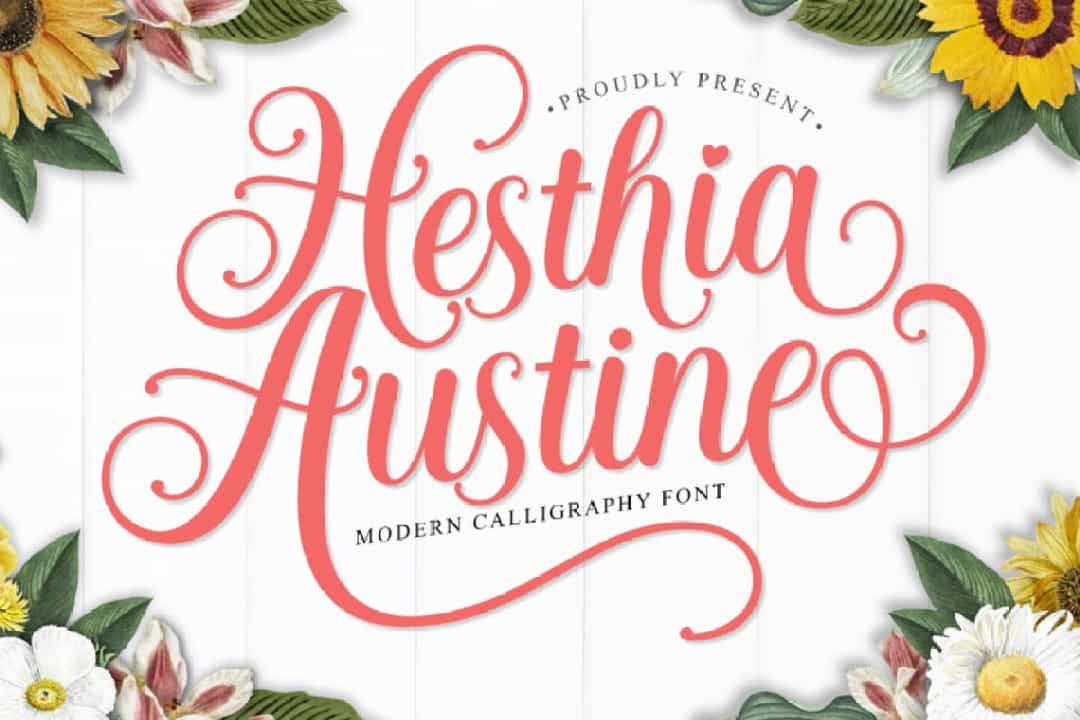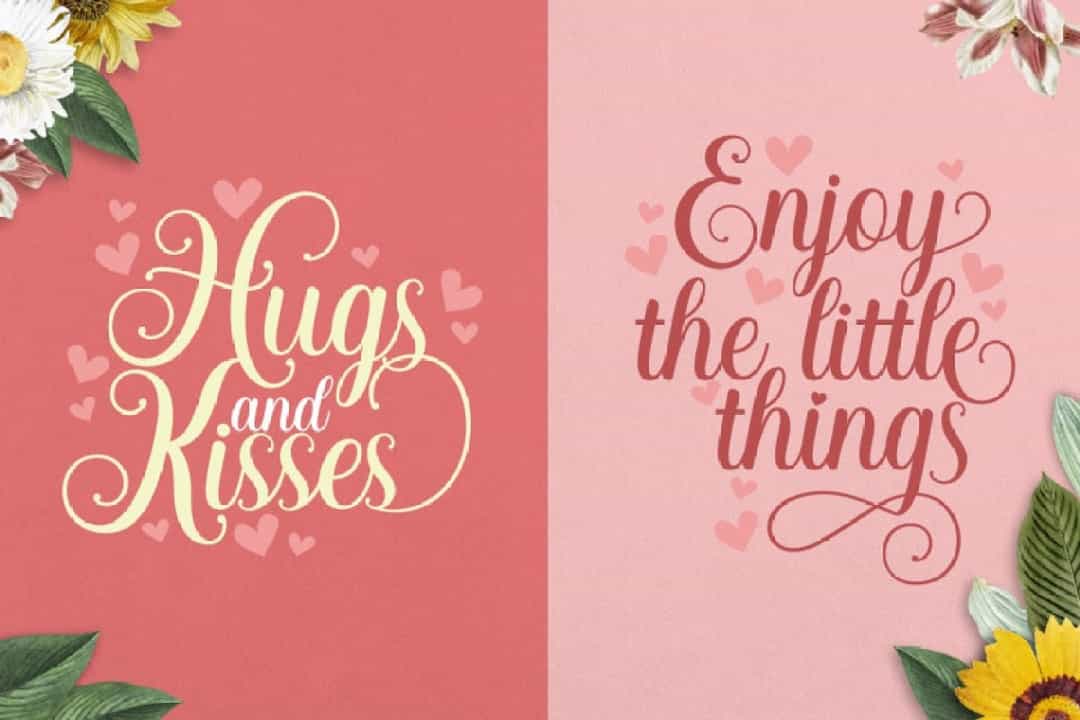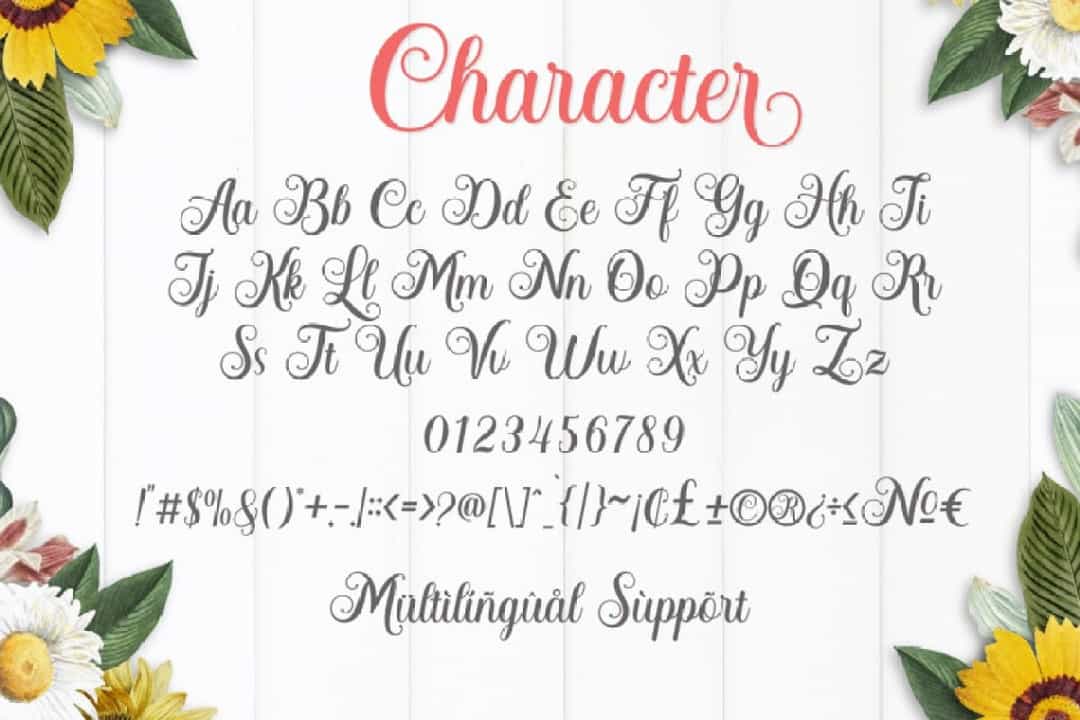
Hesthia Austine is a classic modern font style of calligraphy. This soft font is elegant and lovely and will fit for any kind of designs and gives a fairy tale touch! It is encoded with Private Use Area for quick access of Swashes and other Glyphs.